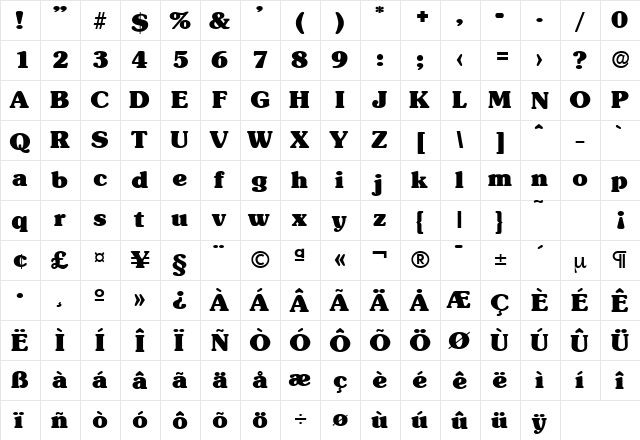
Sunset-Serial-Heavy Regular
Design Context for Sunset-Serial-Heavy Typeface
Sunset-Serial-Heavy takes a measured approach to typography — its balanced proportions and neutral character make it a reliable workhorse for both digital and print work.